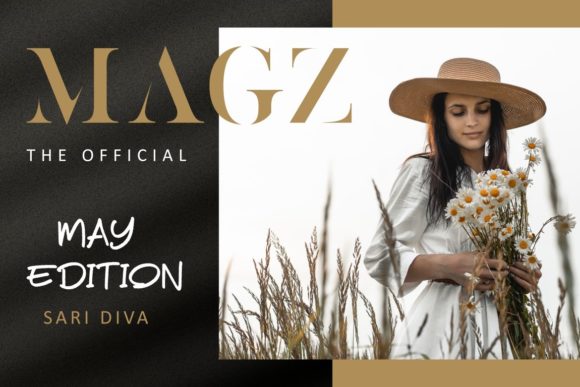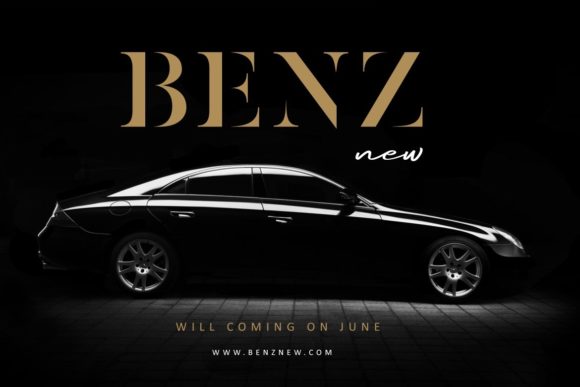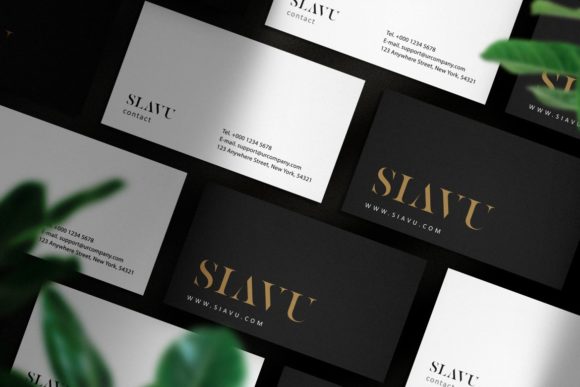
Introduction to Alena Font
Alena is a cool, bold and thick lettered serif font.
It is perfect for fashion branding or editorial designs Add it confidently to your projects, and you will love the results.
Alena Font offers exceptional quality and versatility, making it a valuable addition to your design toolkit. Whether you’re creating for personal projects or commercial use, Alena Font delivers professional results.